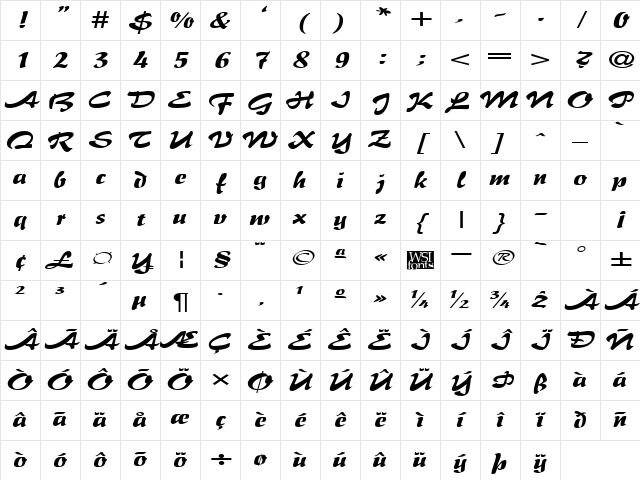
BrushFlairExpanded Regular
Complete BrushFlairExpanded Regular glyph index. Displaying only characters natively supported by BrushFlairExpanded Regular font.
Design Context for BrushFlairExpanded
BrushFlairExpanded flows with the natural rhythm of handwritten lettering, making it ideal for designs that call for warmth and personal expression.
Font Pairing: Combine BrushFlairExpanded with a simple geometric sans for maximum contrast - the tension between flowing curves and clean structure is a classic typographic pairing.
Pro Tip: Use BrushFlairExpanded for short runs of text - names, titles, or taglines. Extended body copy in script faces tires the eye quickly.